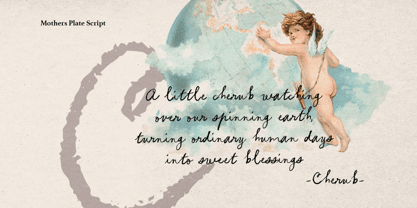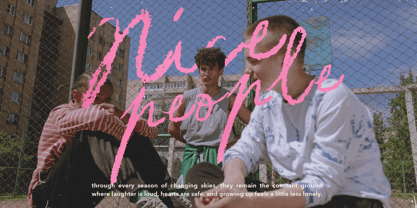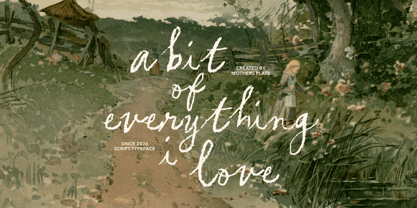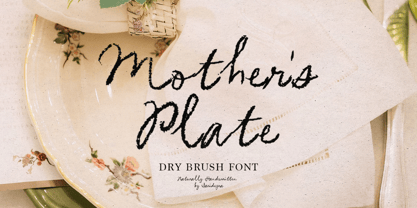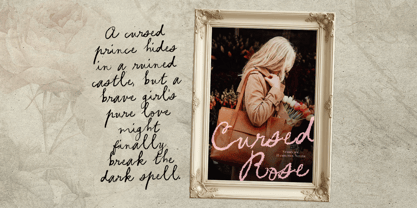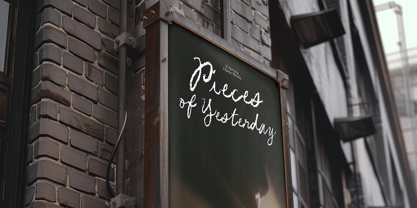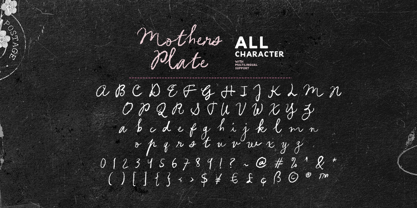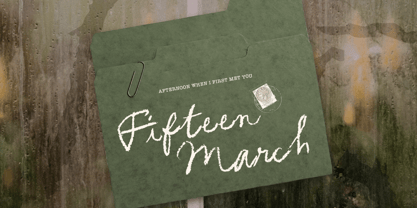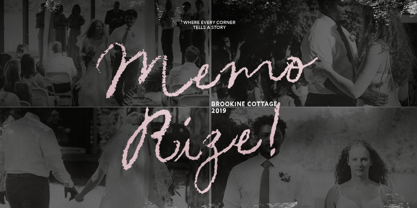
Mothers Plate
by Sarid Ezra
The Mothers Plate Font Family was designed by Sarid Ezra and published by Sarid Ezra. Mothers Plate contains 1 styles. More about this family
Mother's Plate is a handwritten brush font that features a dry, rough, and authentic brush texture, giving your designs a natural handcrafted appearance. Inspired by traditional brush lettering, this font brings a vintage and timeless charm that works beautifully across a variety of creative projects. You can use Mother's Plate for quotes, wedding invitations, branding materials, packaging, posters, logos, social media graphics, and any design that requires an old-fashioned, rustic, or nostalgic atmosphere. Its rough edges and organic brush strokes help create the impression of genuine hand-painted lettering, adding warmth, character, and personality to your work. Whether you are aiming for a vintage aesthetic, a handmade look, or a classic artistic feel, Mother's Plate offers the versatility to enhance your designs with authentic brush-style typography. In addition, this font includes multilingual support, making it suitable for a wide range of international design projects.